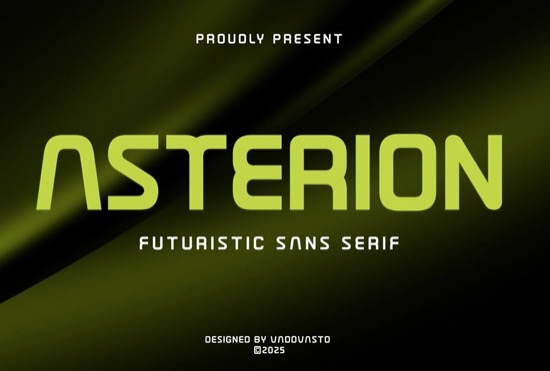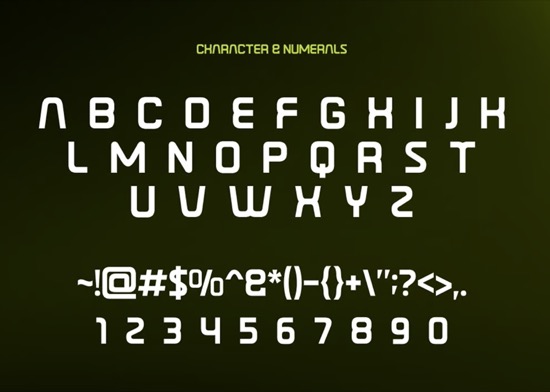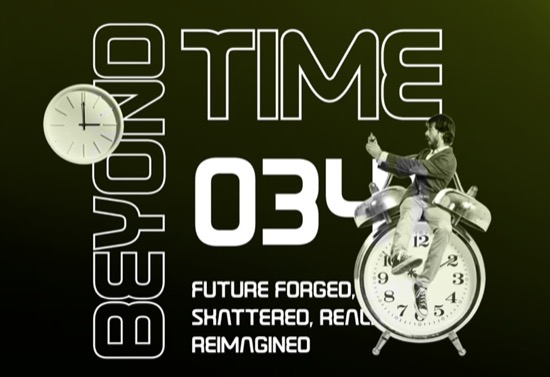
Asterion Font
by Vadovastd
Asterion is a lively and futuristic sans serif font that adds a playful style to your designs. It’s designed to convey innovation and sleek modernity. With its rounded edges, geometric proportions, and clean visual rhythm, Asterion is perfect for technology-focused brands, sci-fi posters, digital interfaces, and creative headlines. Its soft, minimalist shapes offer both readability and a strong presence, making it ideal for projects that aim to combine modern aesthetics with a futuristic feel.
Asterion Modern Futuristic Font